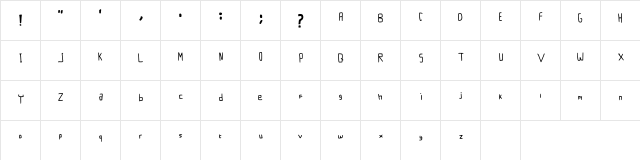
Kotak Nasi Regular
Design Context for Kotak Nasi Typeface
Kotak Nasi takes a measured approach to typography — its balanced proportions and neutral character make it a reliable workhorse for both digital and print work.